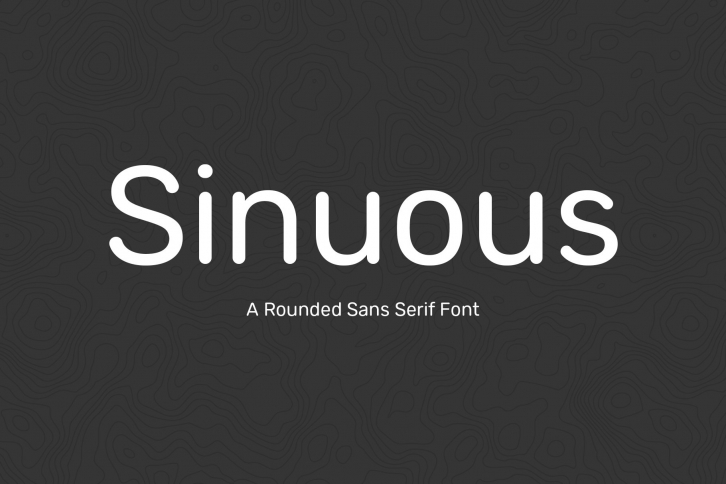
Sinuous is a clean, elegant sans serif font with a strong contemporary feel. Rounded corners allow the font to display well at large or small sizes. Sinuous is very versatile and sophisticated, perfect for headlines, body copy, posters, on-screen and more.